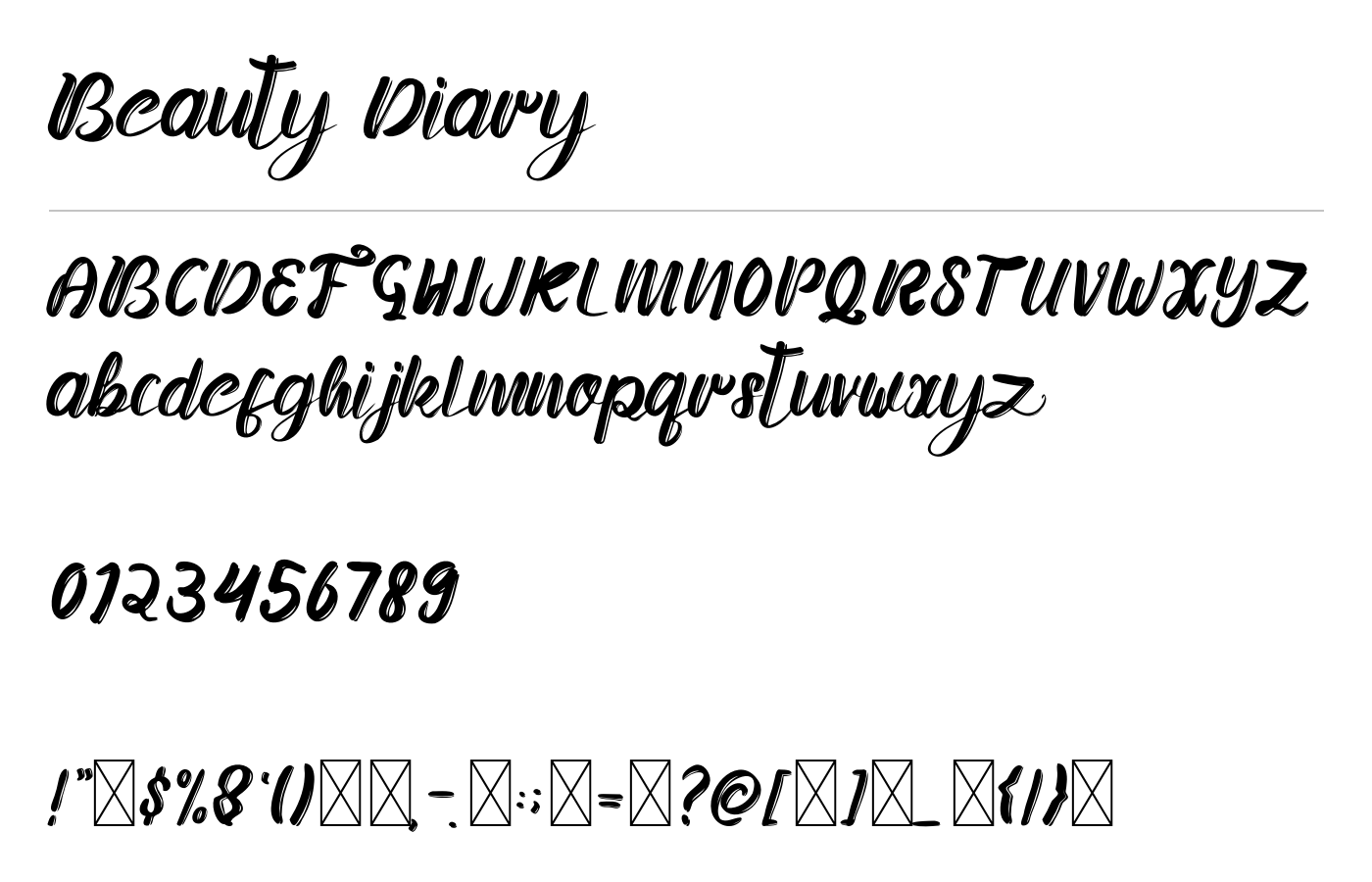
Beauty Diary is a lively script font with bold, brush-like strokes and a dynamic, flowing style that combines elegance with a casual charm. Its slightly slanted, connected letters and generous curves make it perfect for adding a personal, artistic touch to branding, packaging, and invitations, especially in beauty or creative industries. This font works best for headlines and logos where a stylish, energetic feel is desired.
Beauty Diary Font
About Beauty Diary Font